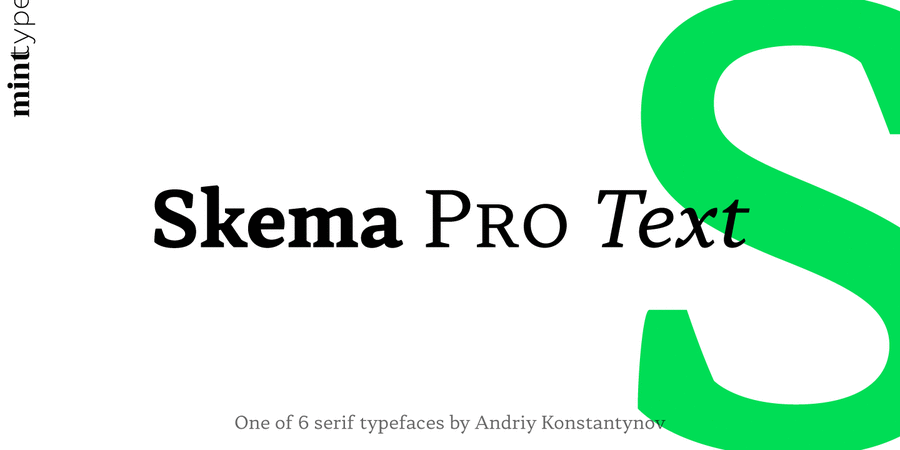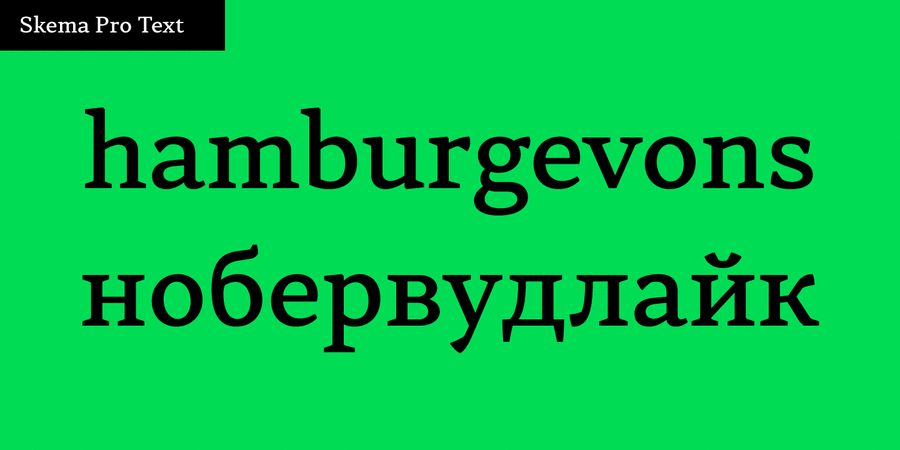
About Skema Pro Text has low contrast, medium x-height, and slightly tilted axis. Its neutrality along with modern feel makes it default choice for long texts of any nature.
Skema Pro is a versatile system of 6 serif typefaces – each bearing a distinct character and purpose. Together they form a huge superfamily of 84 fonts to fit any imaginable task.
Font family Skema Pro was designed and released by Andriy Konstantynov in Mint Type foundry in 2017.
Features of font family Skema Pro TextThe hit of the decade:
Associations for font family Skema Pro TextTypeface personality and character:
thin, easy, delicate, calm, flat, harmonious, balanced, cosmopolitan, unobtrusive, technically, modern, accurate, logical, low key, cultural, educated, stable, serious, solid, dynamic, high-quality, polite, clear, neutral, average, normal, moderate, available, comfortable, humanitarian, comme il faut, noble, conservative, traditional, classic, architectural, tactful, strict, universal, business, practical, optimal, clever, urban, convincing, pretentious, reputable, authoritative, responsible, formidable, severe, robust